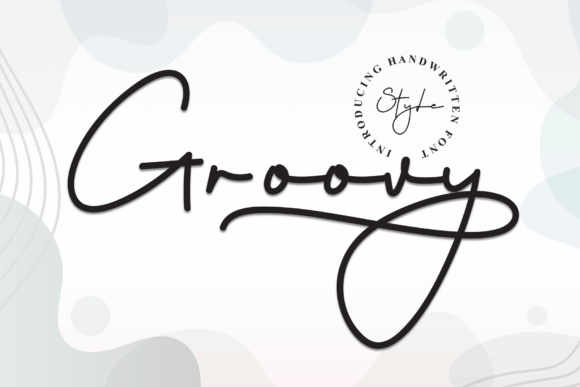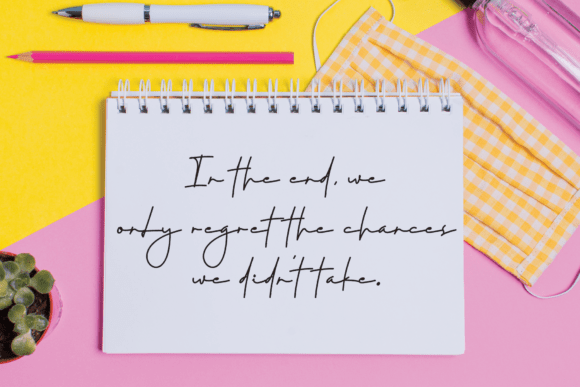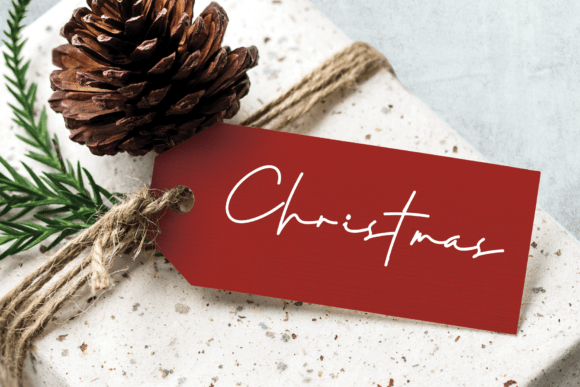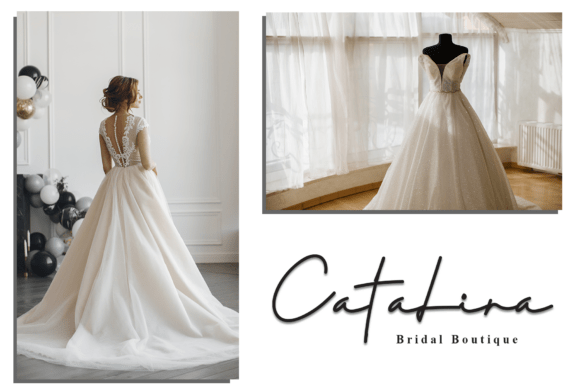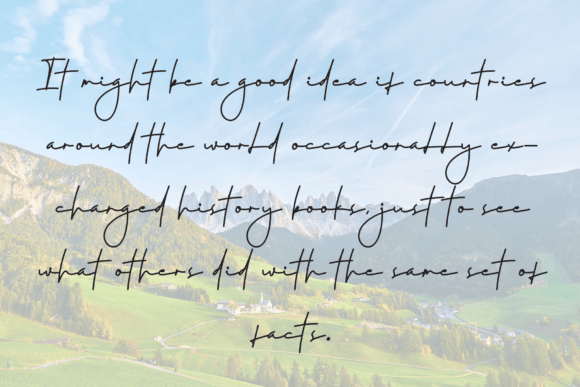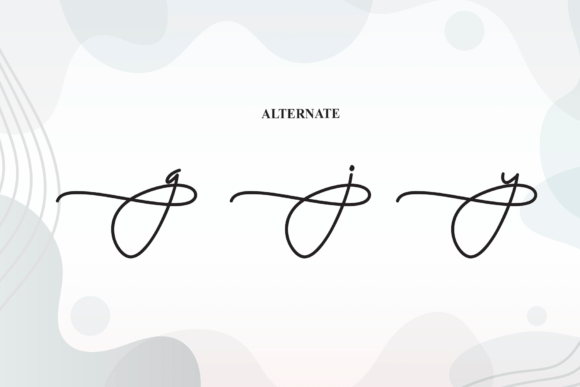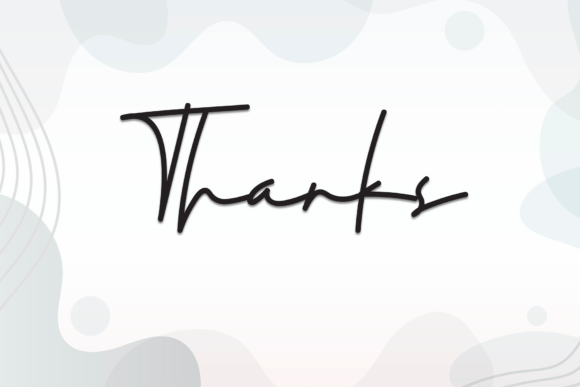
Get Ready to Groove: Introducing the Groovy Font
Have you ever stared at a blank canvas, trying to find the perfect font to capture the essence of your brand? We’ve all been there. Maybe you’re brainstorming ideas for a new social media campaign, or perhaps you’re designing a new logo for a lifestyle brand. Whatever your creative moment, you’re likely searching for a font that exudes a relaxed vibe, yet still feels modern and stylish. Enter the Groovy font, a casual, monoline handwritten script that’s perfect for giving your brand a personal touch.
The Groovy font is more than just a trendy typeface – it’s a valuable tool for designers looking to create authentic, approachable branding. With its long, flowing connectors and consistent weight, this font is both highly readable and incredibly stylish. Whether you’re designing social media quotes, casual apparel, or marketing materials, the Groovy font is an ideal choice for creating a vibe-centric brand that feels truly unique.
Groovy Font Key Features
- Font Size: The font comes in a single weight, with a recommended font size range of 12-24 points for optimal readability and visual impact.
- Unique Characteristics: Groovy Font features a unique blend of modern and vintage elements, with a distinctive rounded edge and subtle texture that adds depth and visual interest.
- Scalability: Groovy Font is designed to be highly scalable, maintaining its legibility and aesthetic appeal even at very large or very small font sizes.
Designer Review: Groovy Font
Overall, I have mixed feelings about the Groovy Font. While it has some great qualities, it also has some limitations that make it less appealing to me.
What works well: ✨ The font has a unique and quirky vibe that can be perfect for projects that require a fun and playful tone. The letterforms are well-designed, and the font is highly legible even at smaller sizes.
What I don’t like: ⚠️ One of the major drawbacks of the Groovy Font is its limited flexibility. The font is designed to be used at a specific size range, and it can look awkward or distorted when scaled up or down. Additionally, the font’s quirky style can be overwhelming for some projects, and it may not be the best choice for more formal or professional work.
Here are some specific things that work and don’t work:
- ✨ Highly legible even at smaller sizes
- ✨ Unique and quirky vibe
- ⚠️ Limited flexibility in terms of scaling
- ⚠️ May be overwhelming for formal or professional projects
Overall, I think the Groovy Font is a great choice for projects that require a fun and playful tone, but it may not be the best choice for more formal or professional work.
Tips: Use Groovy Font to add a playful touch to your designs. It pairs well with bold colors and geometric shapes.
Tips: Use Groovy Font to create eye-catching titles and headings. Experiment with different font sizes and colors to achieve a unique look.
Tips: Use Groovy Font to add a touch of personality to your presentations and documents. Pair it with bold colors and creative layouts for maximum impact.
Some common use cases for Groovy Font include:
- Designing playful and creative graphics.
- Creating eye-catching titles and headings.
- Adding a touch of personality to presentations and documents.
Alternatives to Groovy Font
Comic Sans MS is a playful, cursive font that is great for informal and creative projects. It is often used for children’s books, advertisements, and other applications where a friendly tone is desired. It is similar to Groovy Font in its playful and whimsical feel, but has a more casual and relaxed appearance.
Pacifico is a modern, elegant script font that is perfect for luxury and high-end designs. It features a sophisticated, handwritten feel that is ideal for branding, packaging, and other applications where a touch of sophistication is desired. Unlike Groovy Font, Pacifico has a more refined and polished appearance.